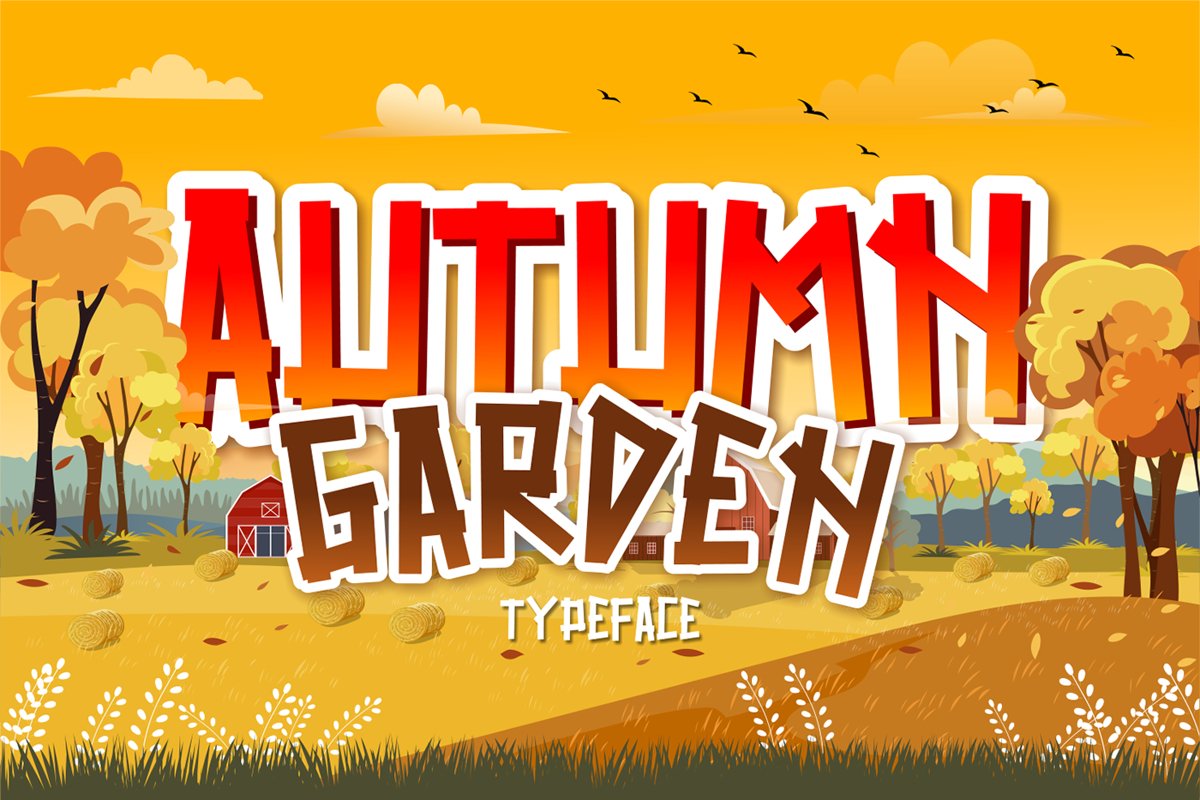
Autumn Garden
Autumn Garden embodies fun, quirkiness and authenticity. This enchanting display font will turn any creative ideas into a true standout. Get creative with its unique playfulness, and use it to brighten up any crafting project!